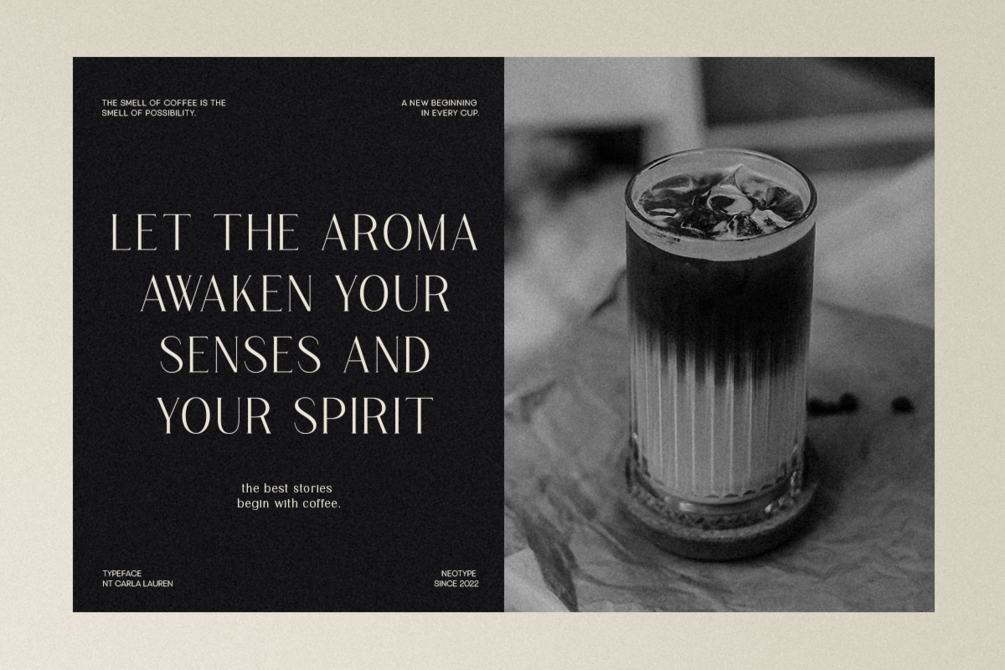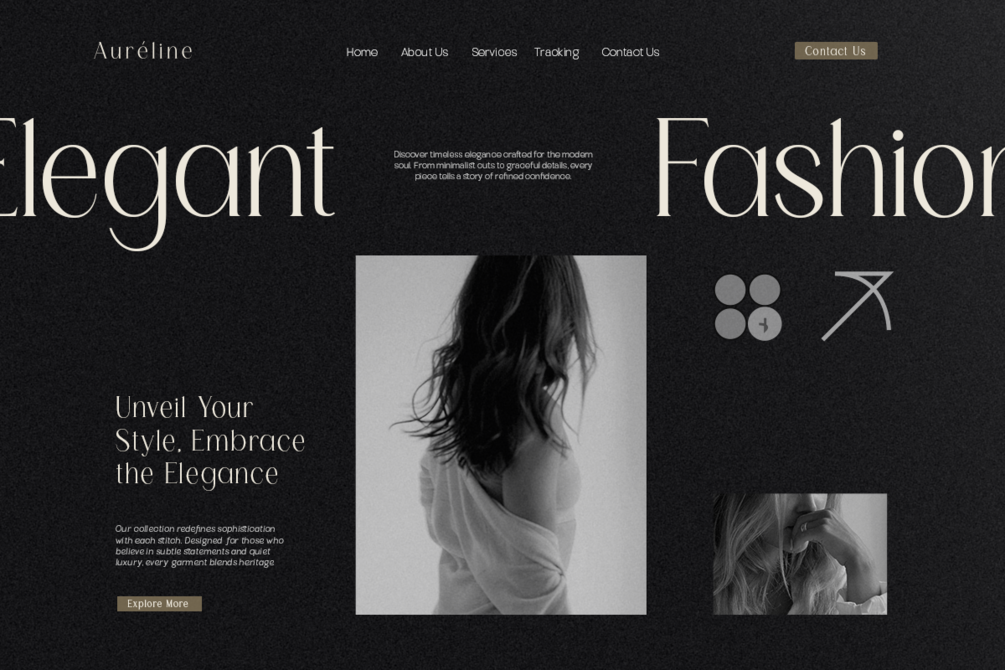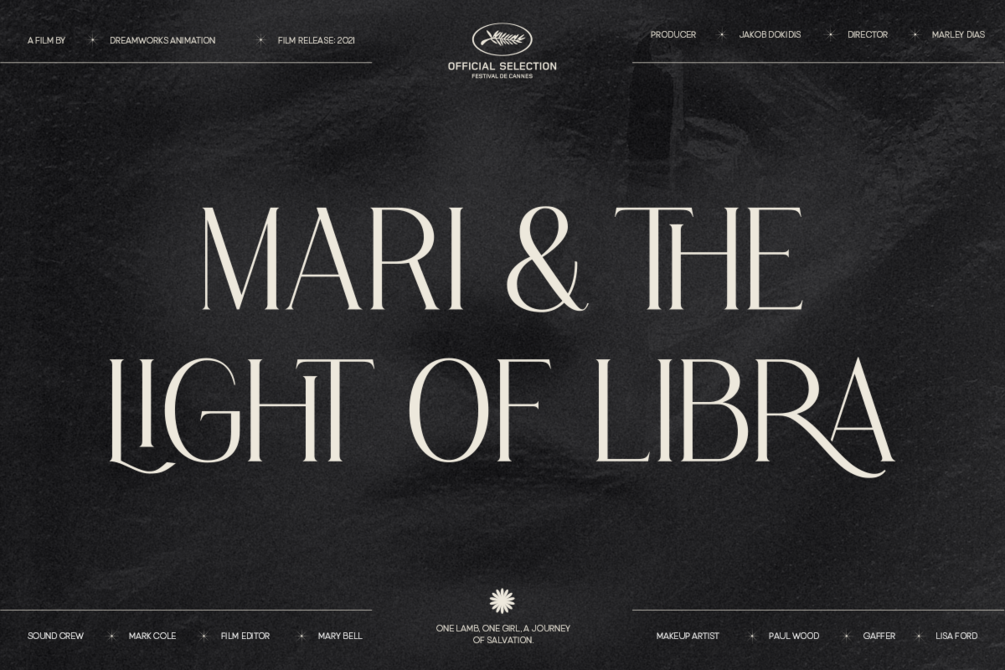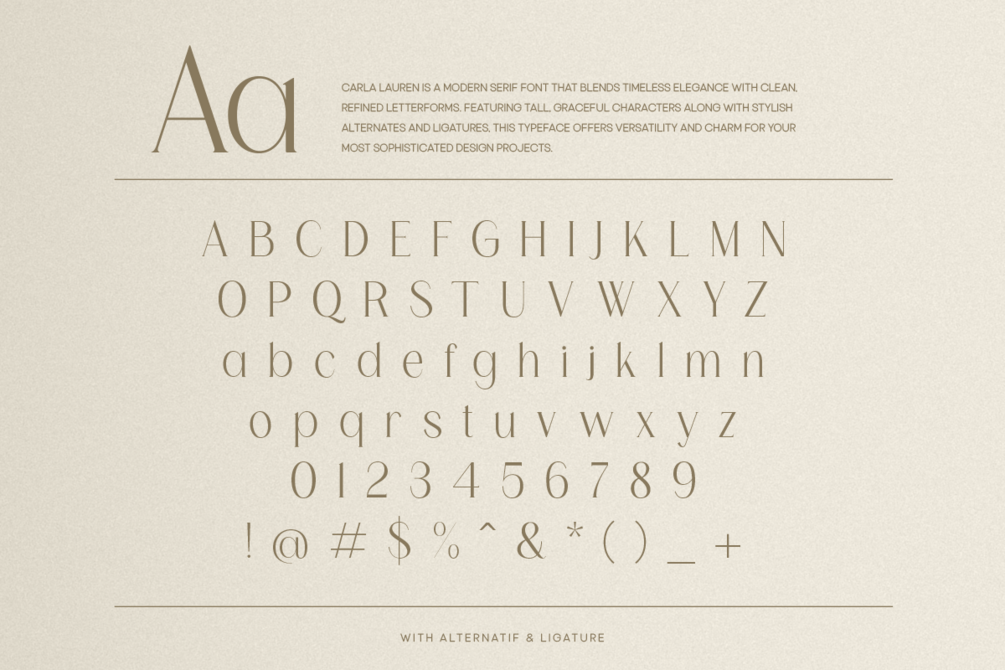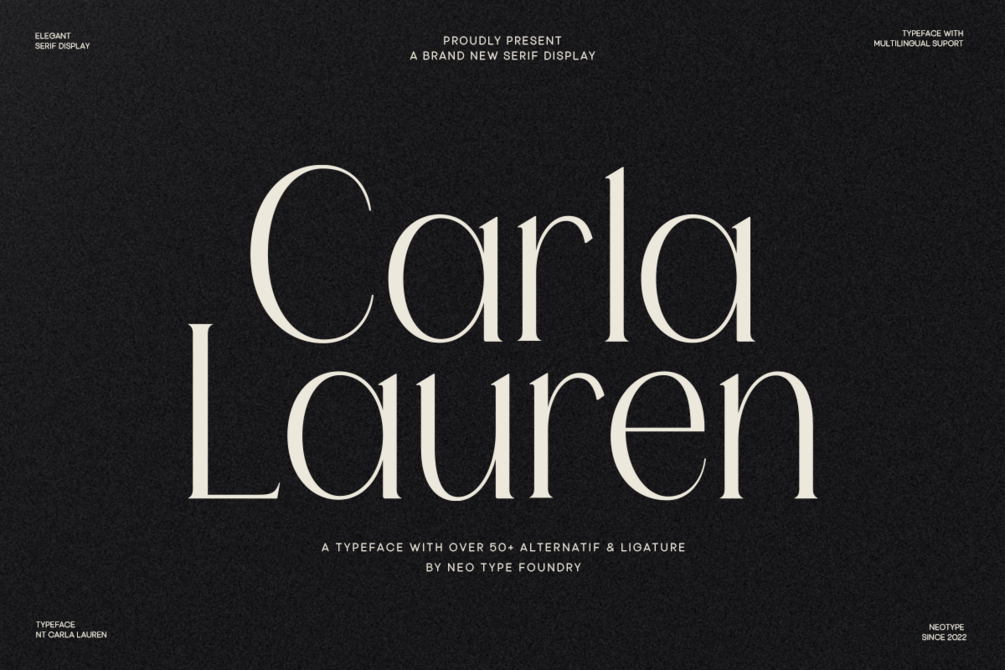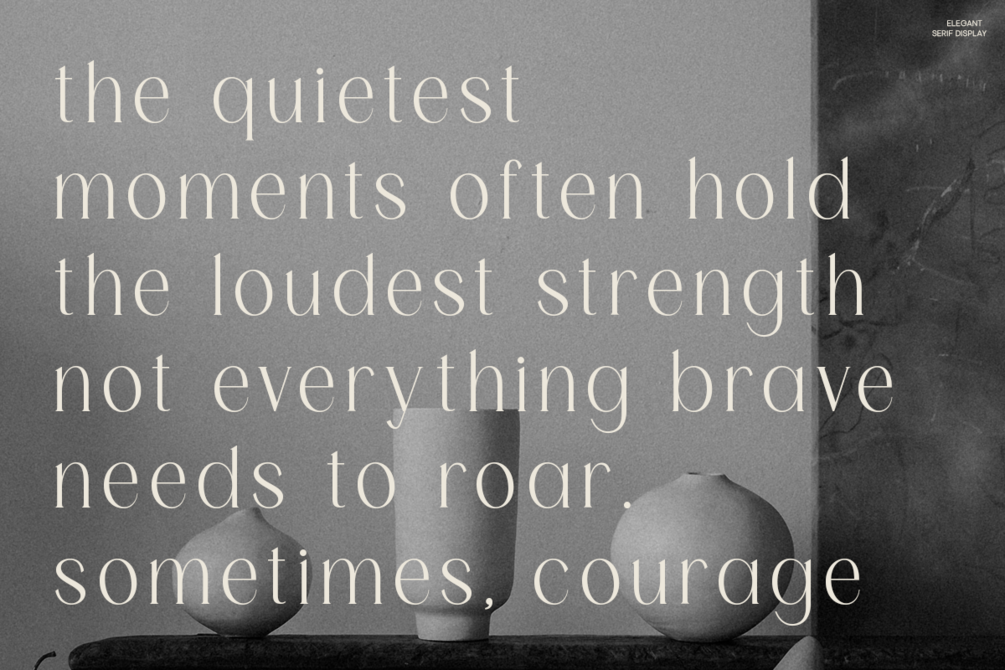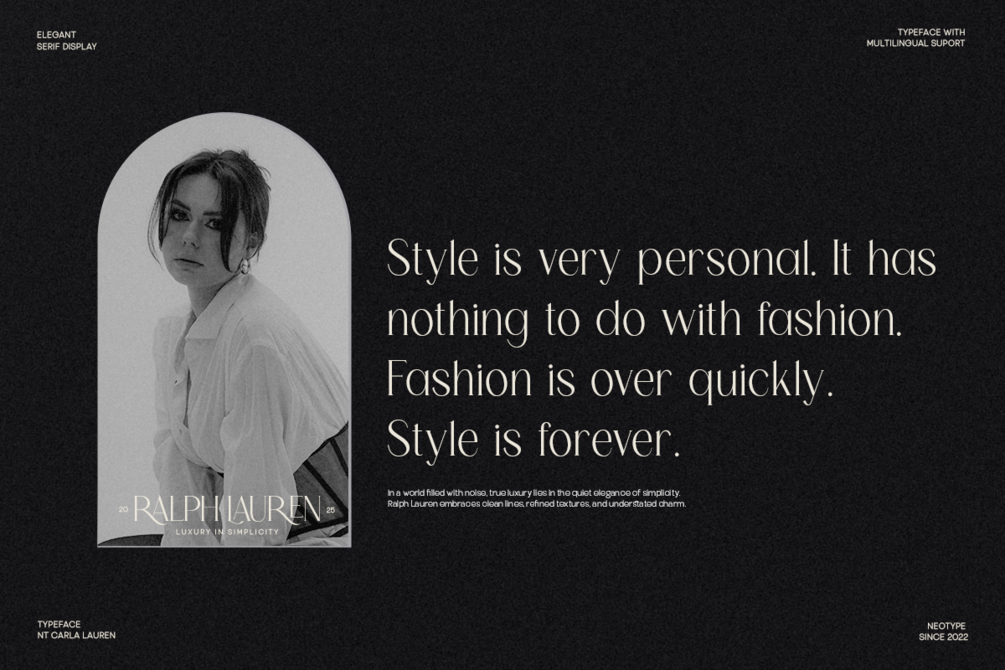
Carla Lauren - Modern Display Serif Font
NT Carla Lauren - Modern Display Serif Font
NT Carla Lauren is a modern display typeface that embodies sophistication with a subtle touch of drama. Designed to stand out in headlines, logos, and editorial layouts, its graceful curves and refined contrast speak the language of timeless elegance.
Crafted with precision, NT Carla Lauren balances high fashion flair with a contemporary edge. The letterforms feature elongated stems, delicate serifs, and unique ligatures — making it perfect for luxury branding, beauty packaging, magazine titles, and artistic posters.
Features:
- All caps
- Stylistic Alternates & Ligatures
- Numerals & Punctuation
- Accented characters
- Multiple Languages Supporte
Alternates & Ligatures
45+ Glyphs
Accented characters
Alphabet
432 Glyphs